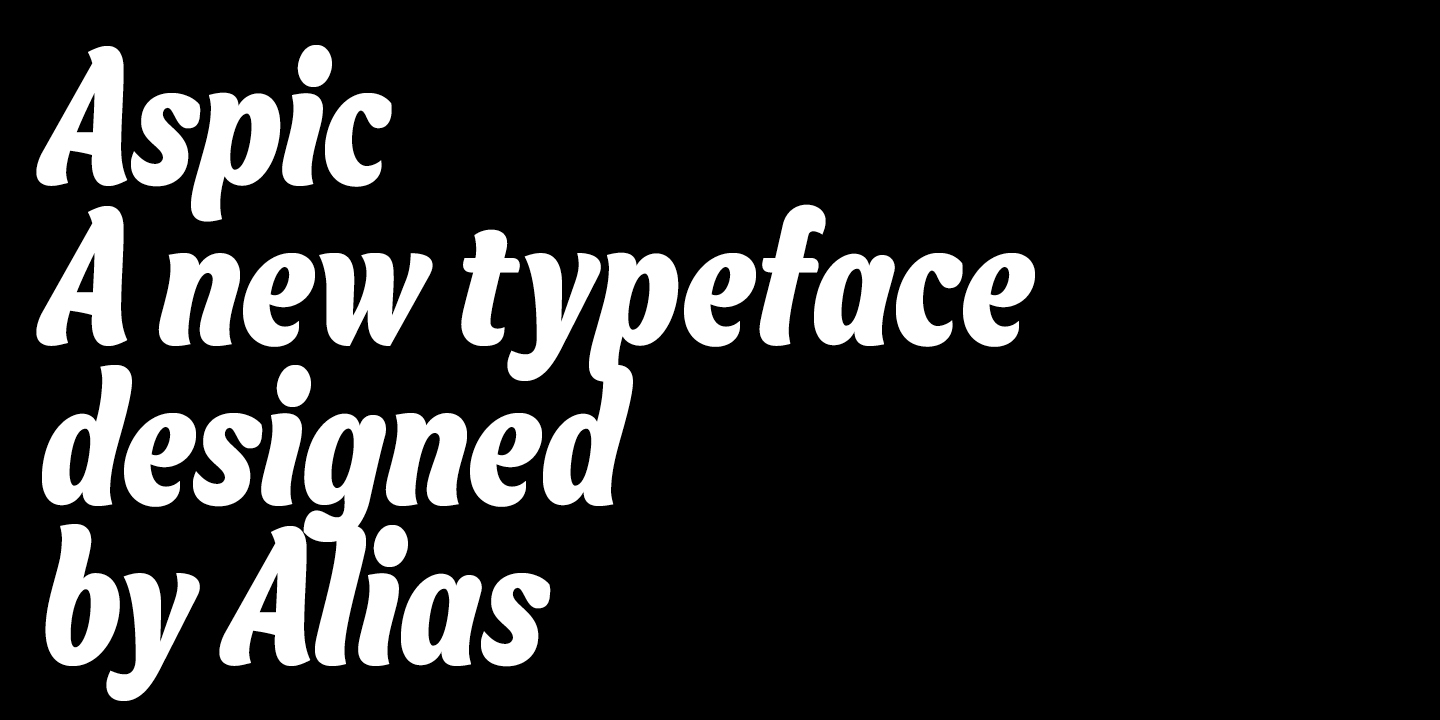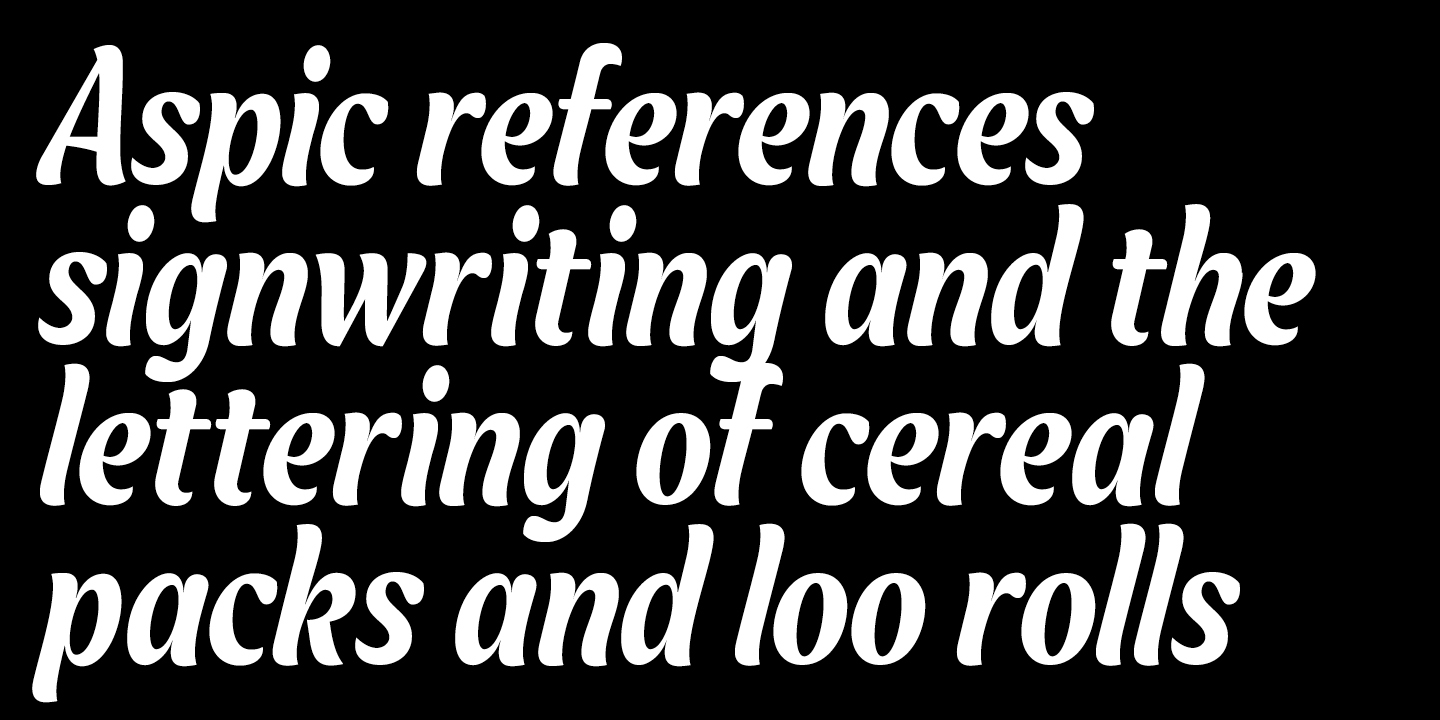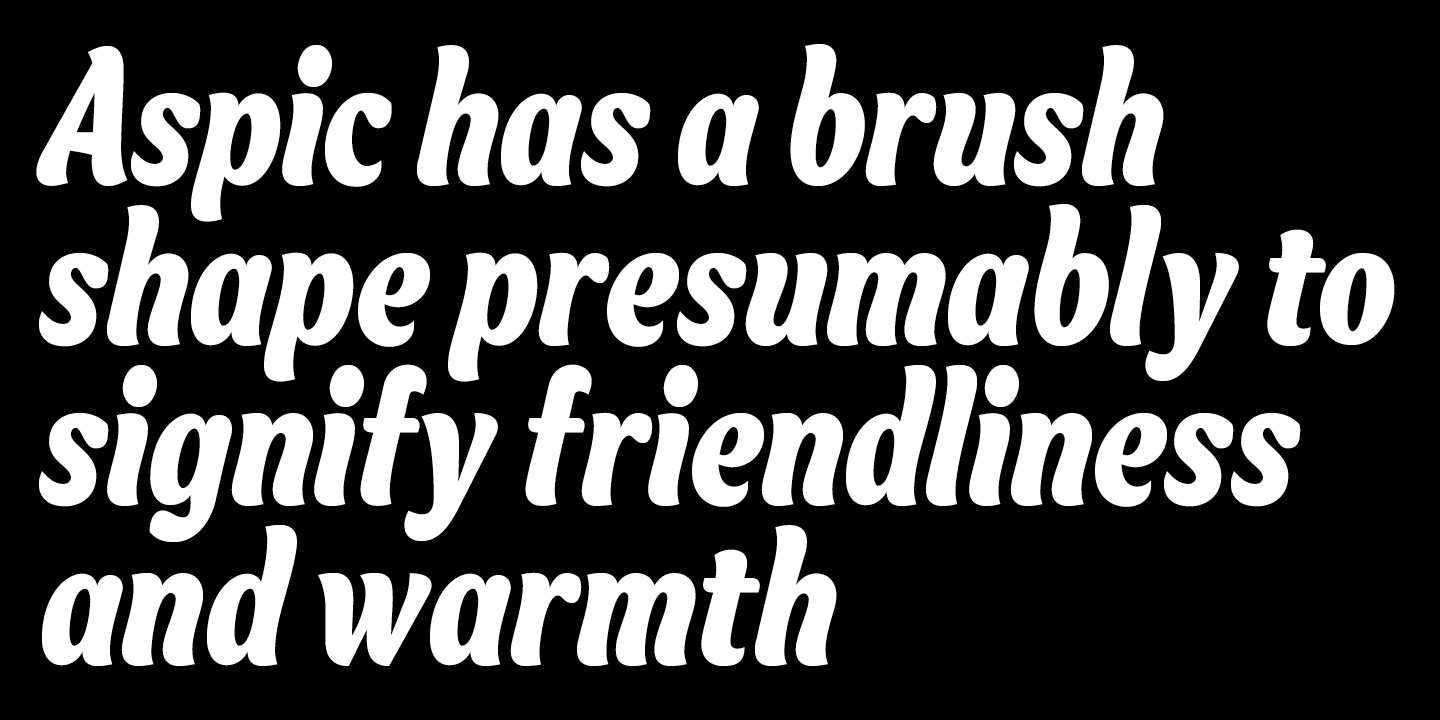
Aspic
Font Family by Alias
Buy NowOne of three typefaces drawn from a mix of influences including signwriting, the brush-style typography of cereal packets or toilet rolls, the calligraphy of Berthold Wolpe. All have an emphasis on an expressive digitally-derived interpretation of hand painted or brushed lettering. There was a ?hard?, 'script and this 'soft? version, expressing this idea in three different ways. This typeface references brushed signwritten lettering.